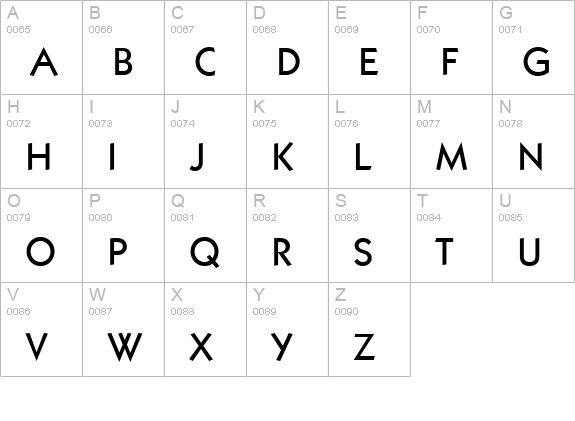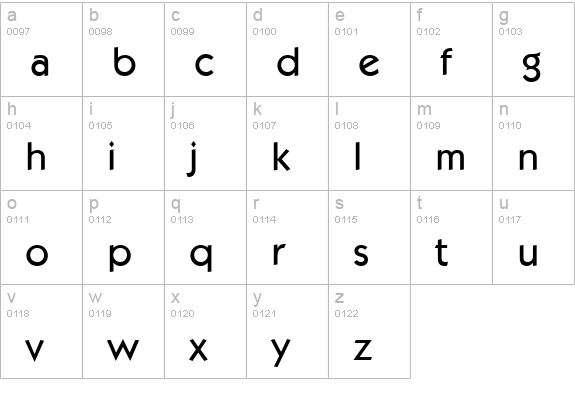
Koblenz-Medium-Regular is a balanced, medium-weight variant in the Koblenz typeface family \xE2\x80\x94 well suited to sub-headlines, navigation, and balanced editorial work.
Koblenz-Medium-Regular is a versatile and modern font that strikes the perfect balance between professionalism and creativity. Its clean lines and slightly rounded edges give a friendly and approachable feel, making it suitable for a wide range of design projects. This font is ideal for branding, advertising, editorial design, and much more. What makes Koblenz-Medium-Regular even more appealing is that it is completely free to download at FontsMarket.com. You can easily access this high-quality font for your personal or commercial projects without any cost. Embrace the elegance and functionality of Koblenz-Medium-Regular in your designs today!